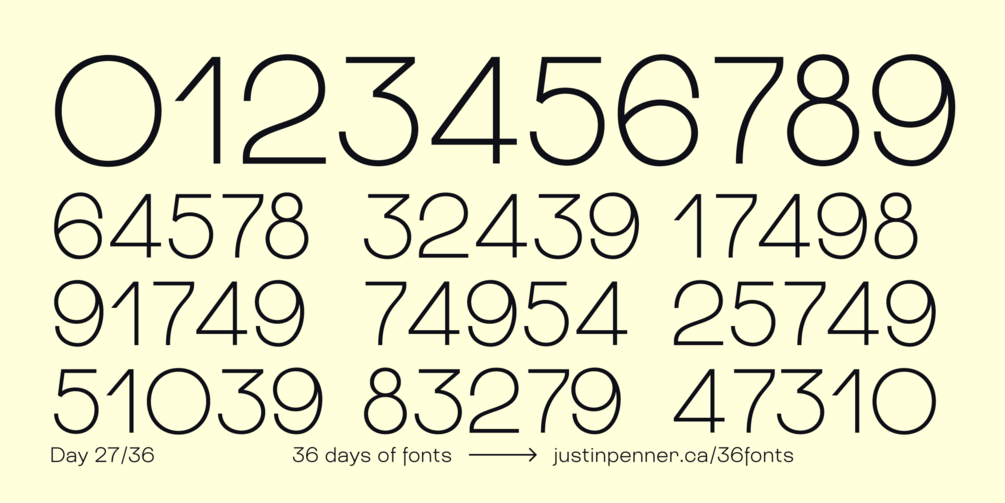
36 Days of Fonts: Day 27
Alright, I've done 26 days of alphabets – let's move on to numbers now. Here's my take on the art deco-style building numbers that have become quite ubiquitous in many cities.